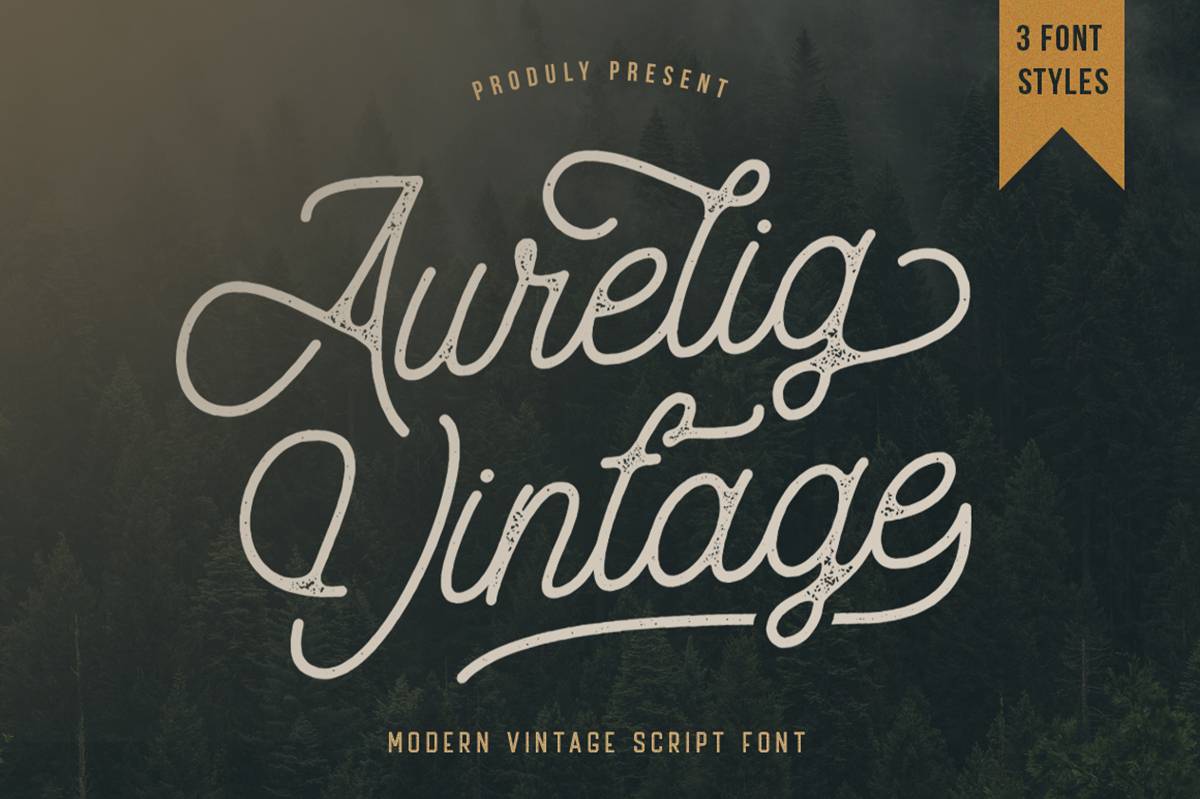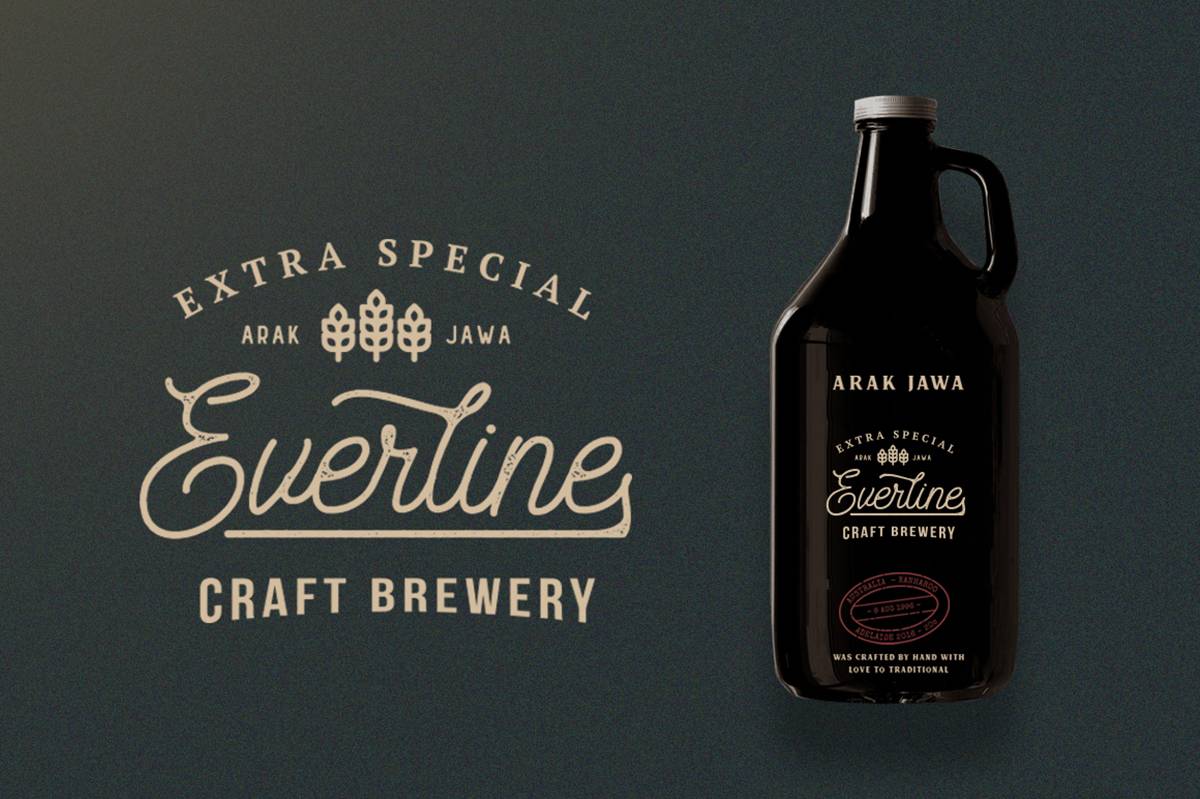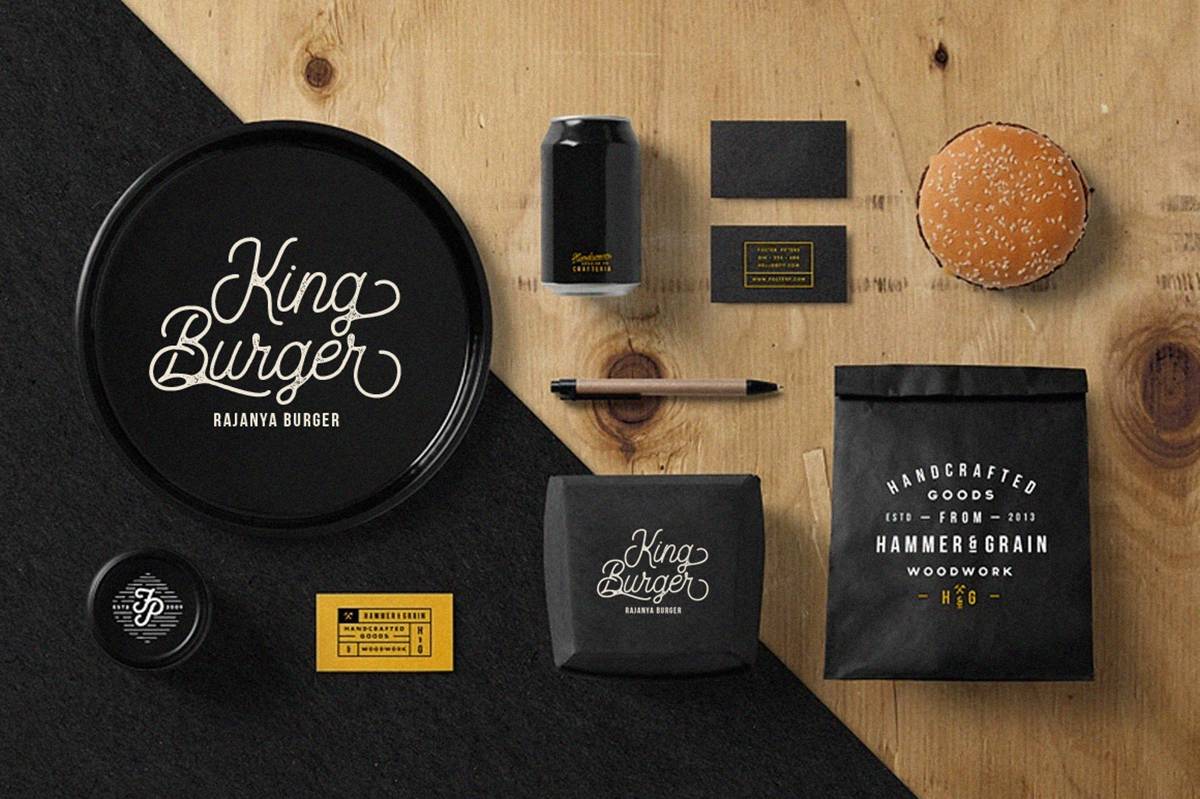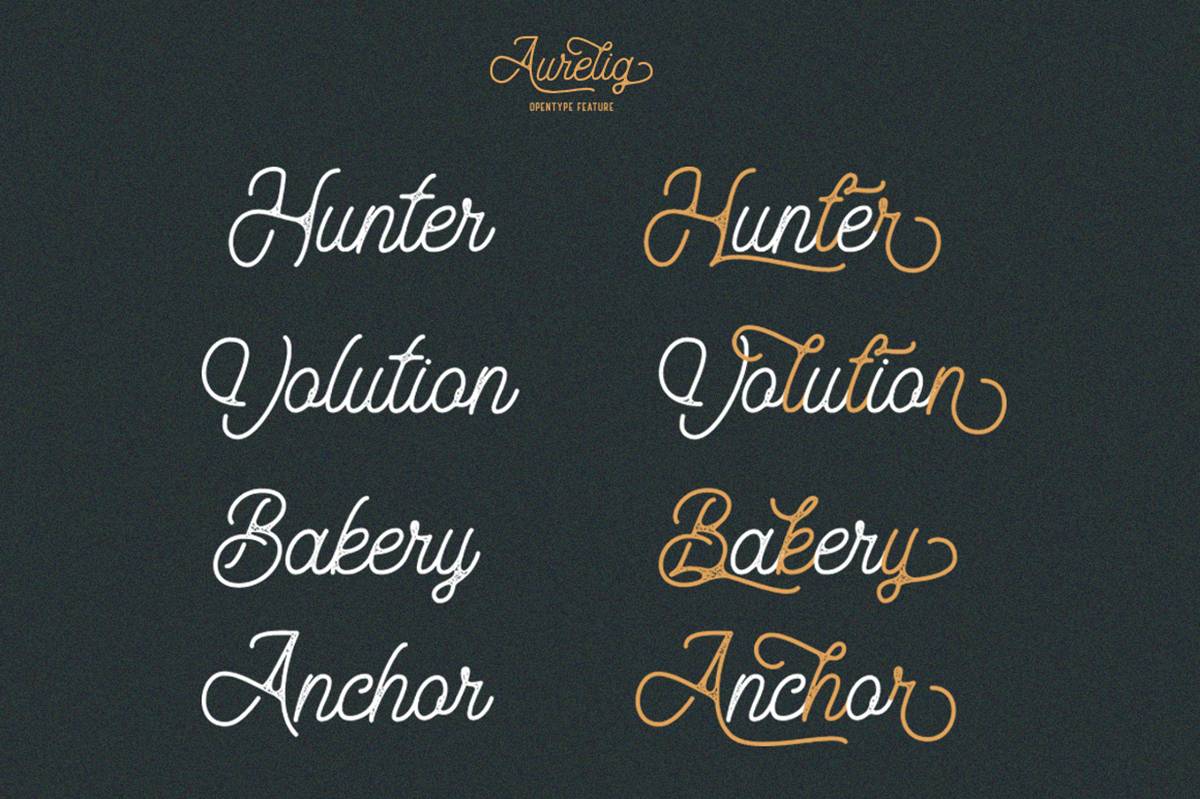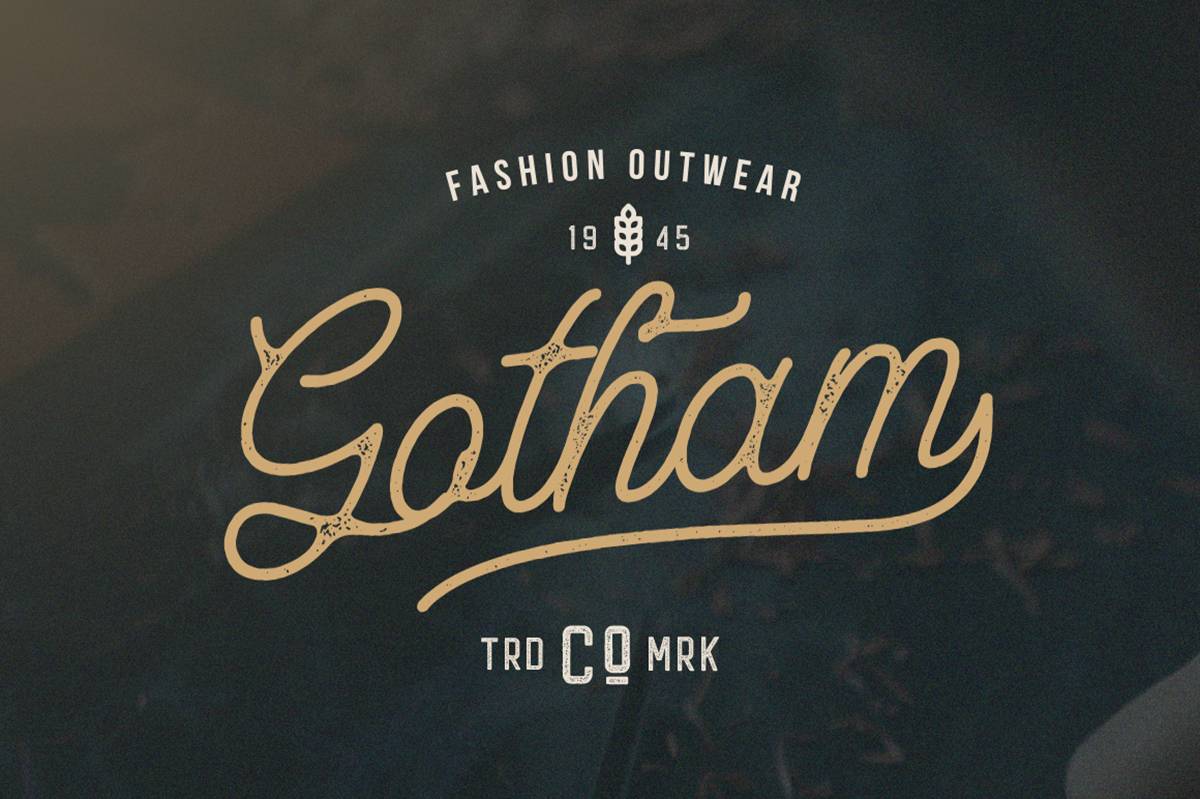
Aurelig is an elegant, flowing script font with a delicate, lightweight stroke and a smooth, cursive style that evokes a handwritten feel. Its graceful letterforms and moderate contrast make it ideal for sophisticated branding, invitations, or stylish headlines where a refined, personal touch is desired. This font works beautifully in settings that require a classy, approachable, yet artistic appearance.